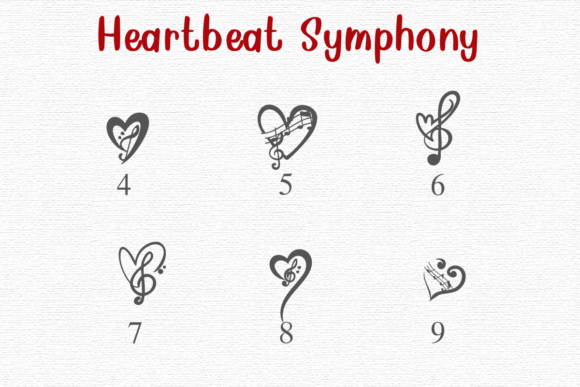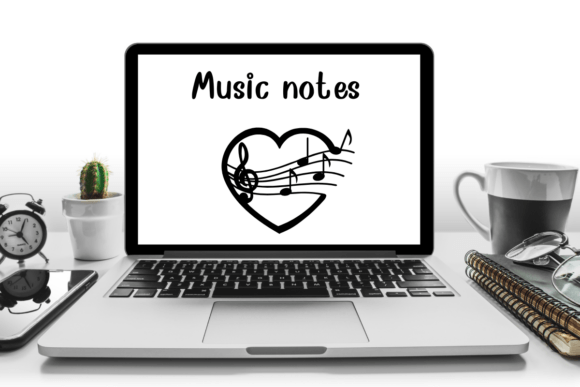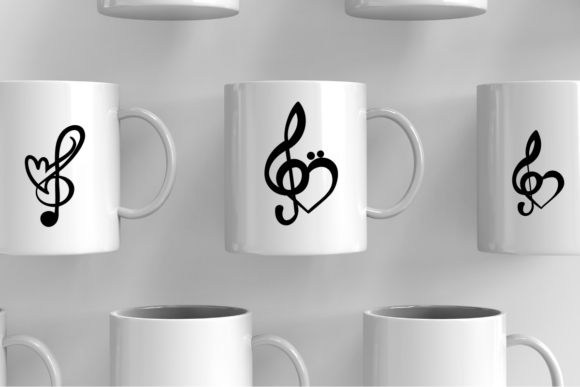
Heartbeat Symphony Font
Heartbeat Symphony is a dingbats font with a classical theme. This font can enhance your creative projects such as wedding invitations, DIY, crafts, decorations, logos, and many other creative ideas.